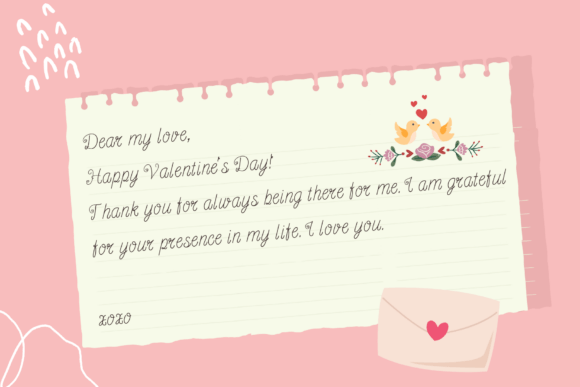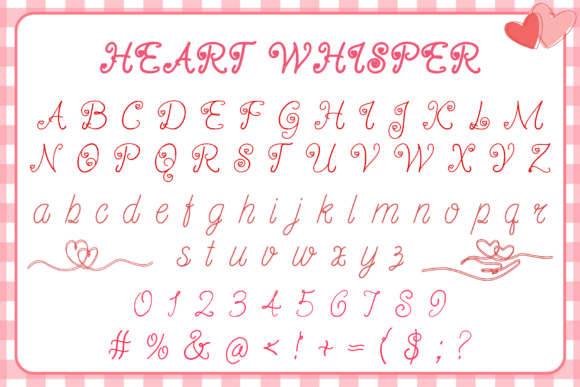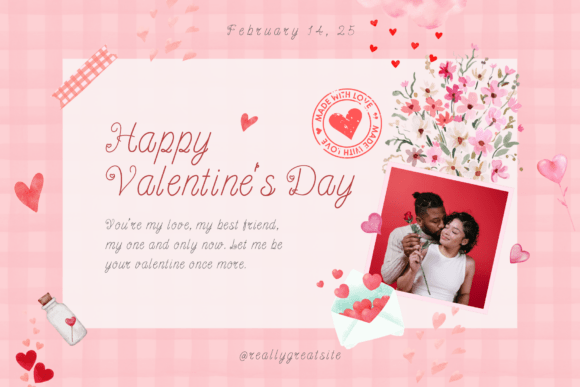
Introduction to Heart Whisper Font
As a designer, there’s nothing quite like the thrill of landing on the perfect font for a creative project. You’ve spent hours browsing through endless options, and finally, you stumble upon it – the one that makes your design truly pop. For me, that font was the Heart Whisper Font, a romantic handwritten script font that stole my heart with its lovely curls and adorable heart details.
What I love most about the Heart Whisper Font is its ability to evoke a sense of warmth and love in any design. Whether you’re working on a Valentine’s Day project or a wedding invitation, this font brings a high-quality, soft, and charming feel that’s hard to resist. And the best part? It’s available for free download, making it an accessible design resource for designers of all levels.
With its smooth curves and playful swashes, the Heart Whisper Font is perfect for logos, branding, social media posts, stickers, and packaging designs. Plus, its transparent background makes it easy to use in any design project. If you’re looking to add a touch of love and cuteness to your creations, look no further than the Heart Whisper Font.
Key Features of Heart Whisper Font
- High-quality design for creative projects, suitable for various applications such as logos, posters, and social media graphics.
- Features a transparent background, allowing for easy integration into various design elements.
- Includes a scalable design, available in sizes ranging from 12pt to 72pt, making it suitable for various design applications.
- Designed at a high resolution (300 DPI), ensuring crisp and clear text even at larger sizes.
- Unique characteristics include elegant script and cursive styles, perfect for adding a touch of sophistication to any design project.
Honest Review: Heart Whisper Font
I recently stumbled upon the Heart Whisper Font while searching for a unique design resource to elevate a creative project. The first thing that caught my attention was its high quality and elegant feel, making it perfect for projects that require a touch of sophistication.
- High-quality and elegant feel
- Perfect for creative projects that require sophistication
- ⚠️ Limited customization options
- ⚠️ May not be suitable for projects requiring bold or playful typography
Overall, I’m impressed with the Heart Whisper Font. It’s a great addition to any designer’s toolkit, especially for projects that require a touch of elegance. While it may have some limitations, its high quality and unique feel make it a valuable design resource.
How to Use Heart Whisper Font
The Heart Whisper Font is a beautiful, high-quality design resource perfect for any creative project. It’s available for free download and features a transparent background, making it easy to incorporate into your designs.
To get the most out of the Heart Whisper Font, use it in combination with other high-quality design resources. Experiment with different font sizes, colors, and styles to create a unique look for your project.
The Heart Whisper Font is perfect for any creative project, including wedding invitations, baby announcements, and social media graphics. Its beautiful, cursive script makes it ideal for adding a touch of elegance to your designs.